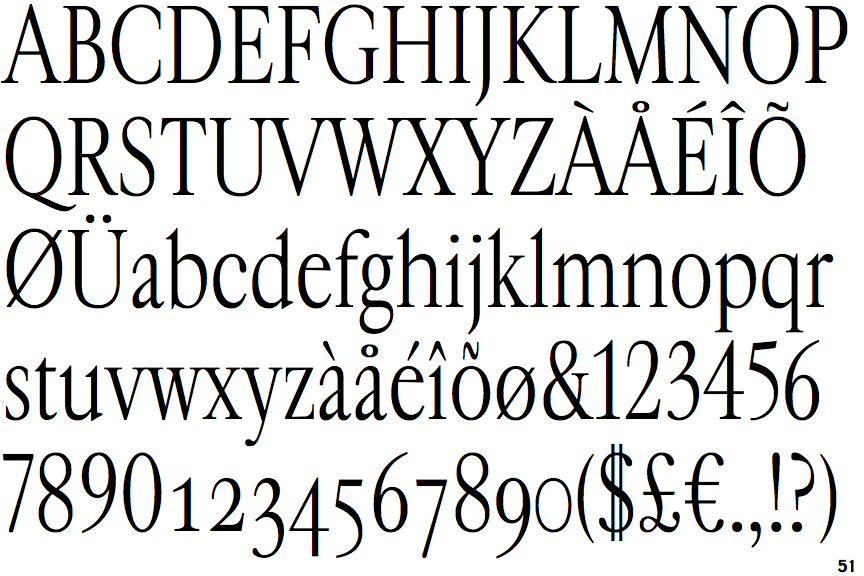
Cardinal Fruit Font Download
Production Type Is A Digital Type Design Agency.
Second, cardinal fruit is a very specific flavor of condensed, recalling early computer advertisements. Onlinewebfonts.com is internet most popular font online download website,offers more than 8,000,000 desktop and web font products for you to preview and download. 13 matching requests on the forum.
So named because it was inspired by apple garamond. Cardinal font | dafont.com english français español deutsch italiano português. Thanks for downloading sharp cardinal.
Thousands of designers (famous or not) use the image font detection system to find a font or. Buy this font online from:. It was released through production type in 2018.